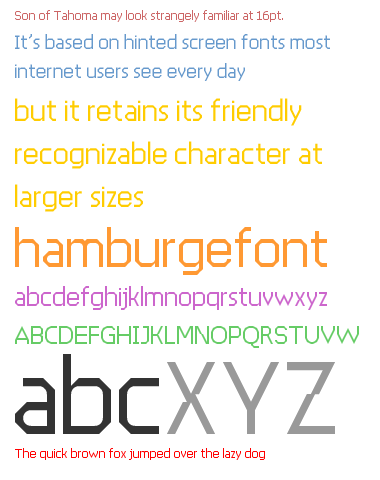
Son of Tahoma
My first go at this
Nice Font
Good first font - works well at all sizes :)
Use composites for the X. Unless its supposed to look like that... anyways I agree with p2pnut... Great font for all sizes, but especially small.
Thanks for the comment Drgrit, I made this font before composites were available, although I do quite like the X shape now
Son of Tahoma